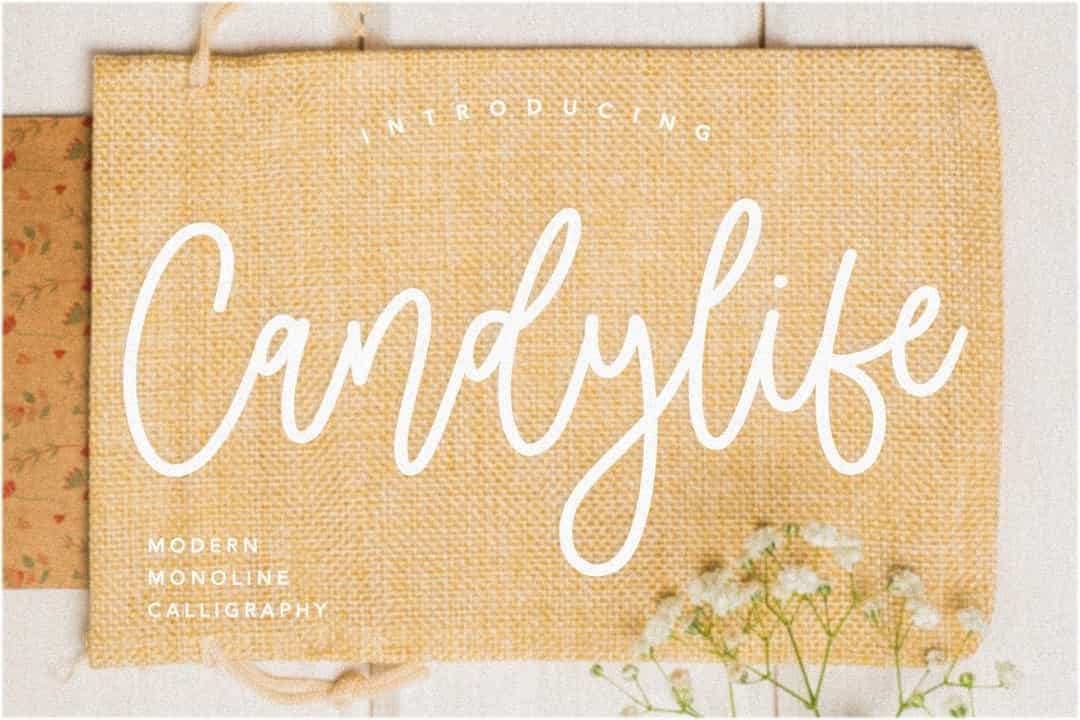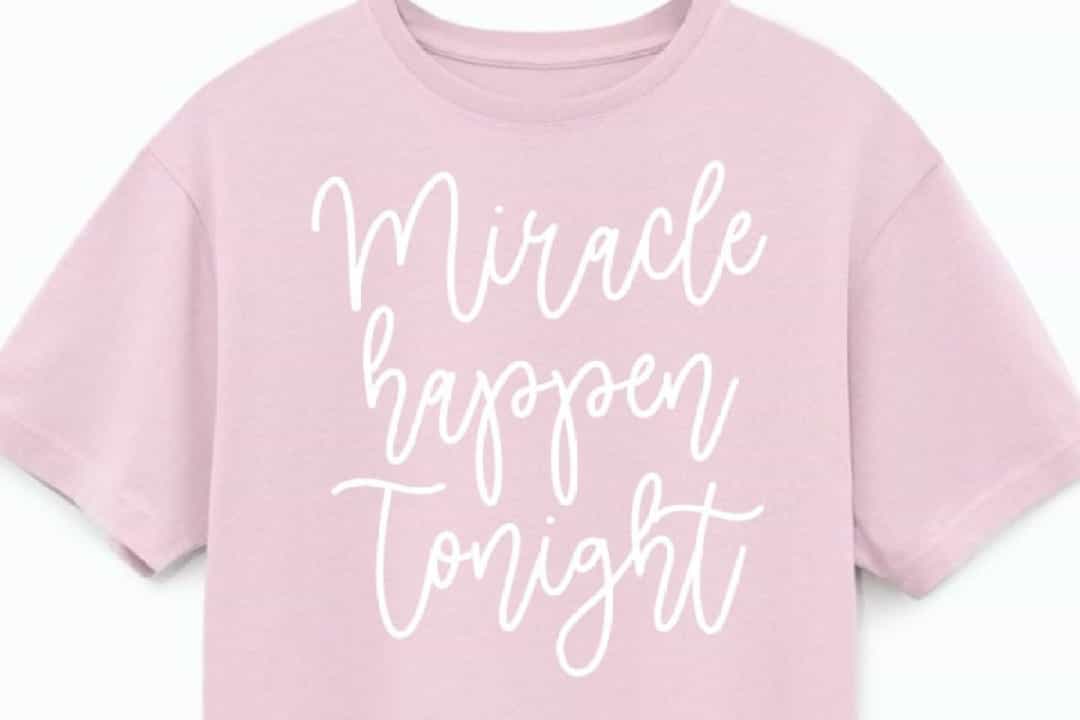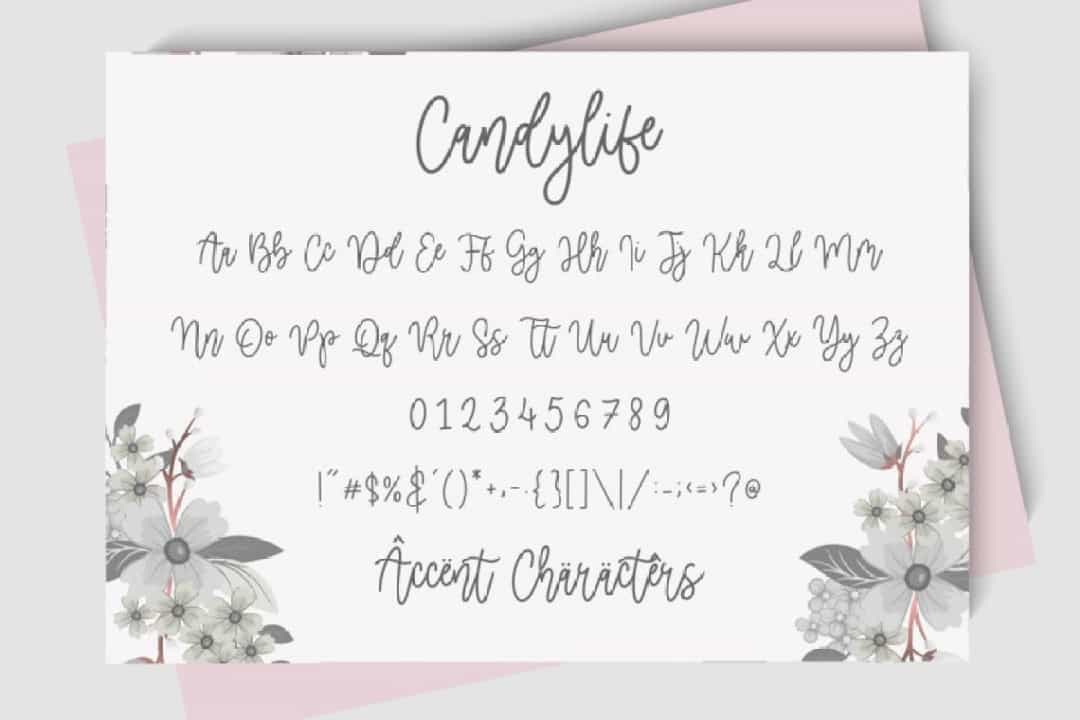
Candylife Font is a modern day handwritten signature in which the design has been modeled to mimic handwritten text, with strokes that are natural and uniquely define individual letters. In this regard, it can be applied in several design domains such as packaging design, corporate logos, greeting cards such as business card or wedding cards as well as social media platforms and magazines covers among others.